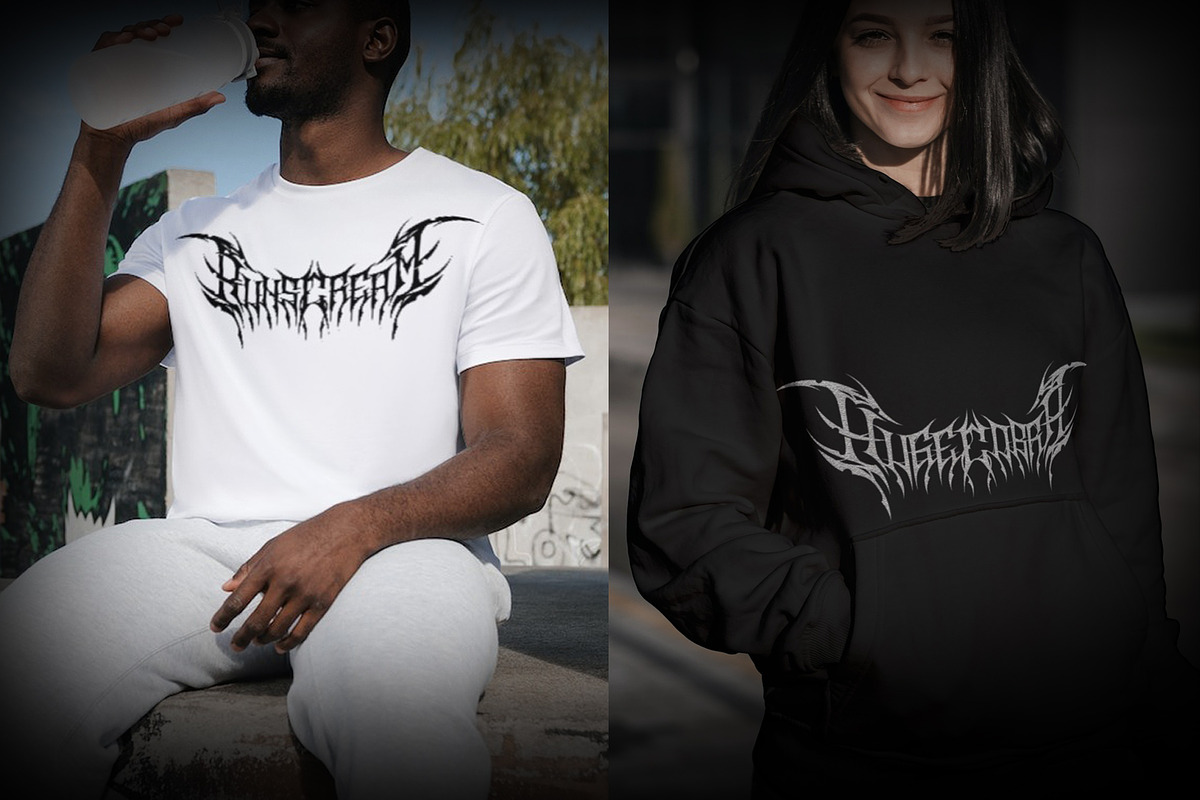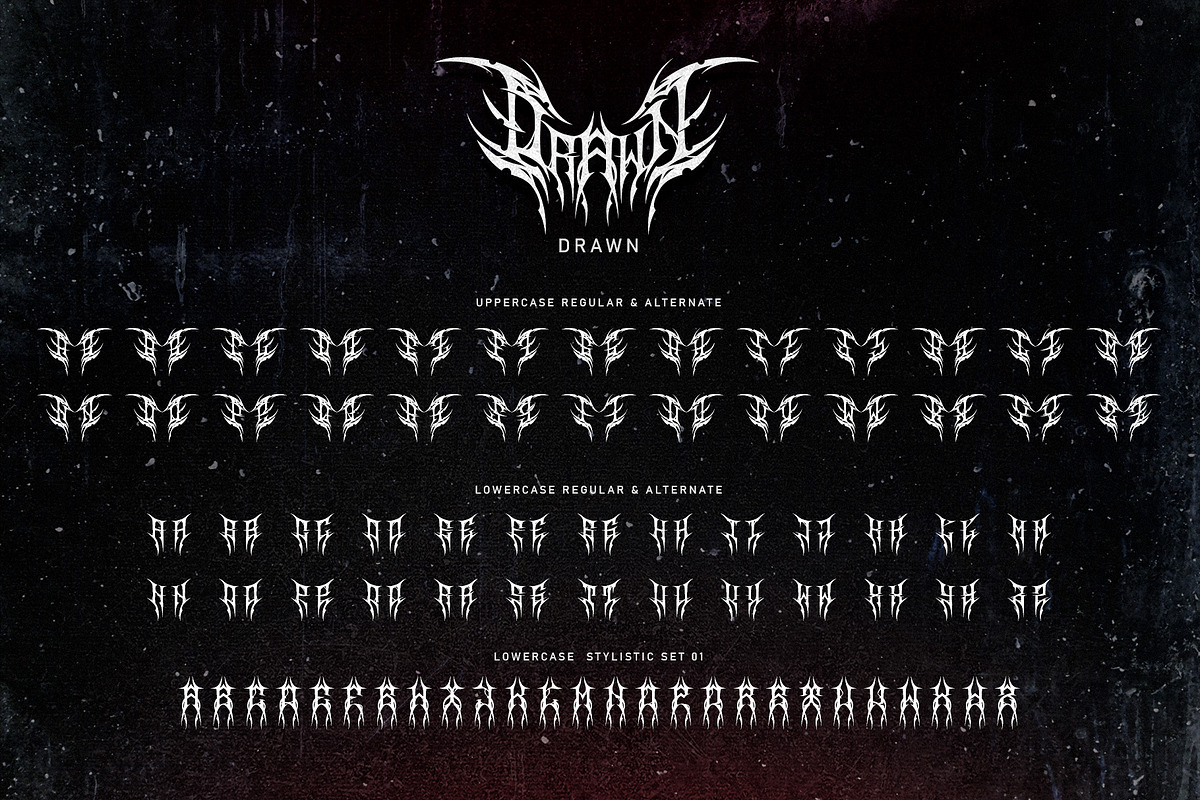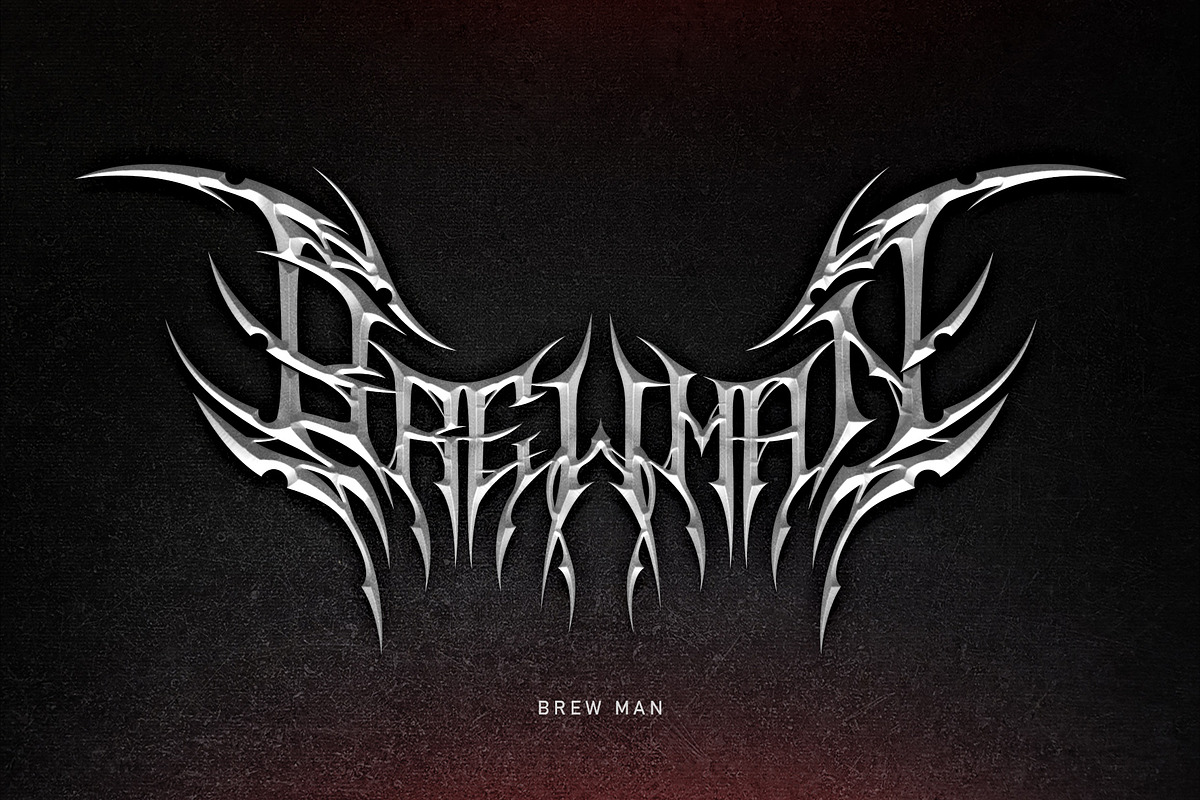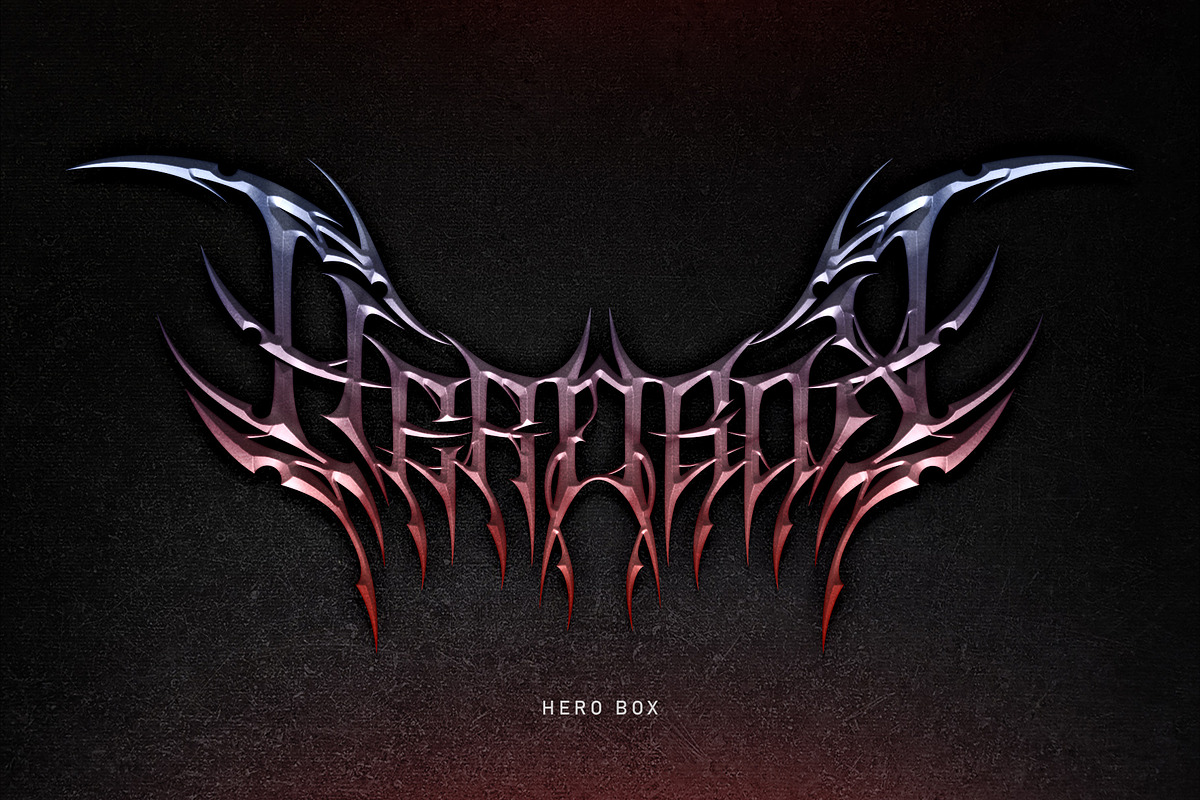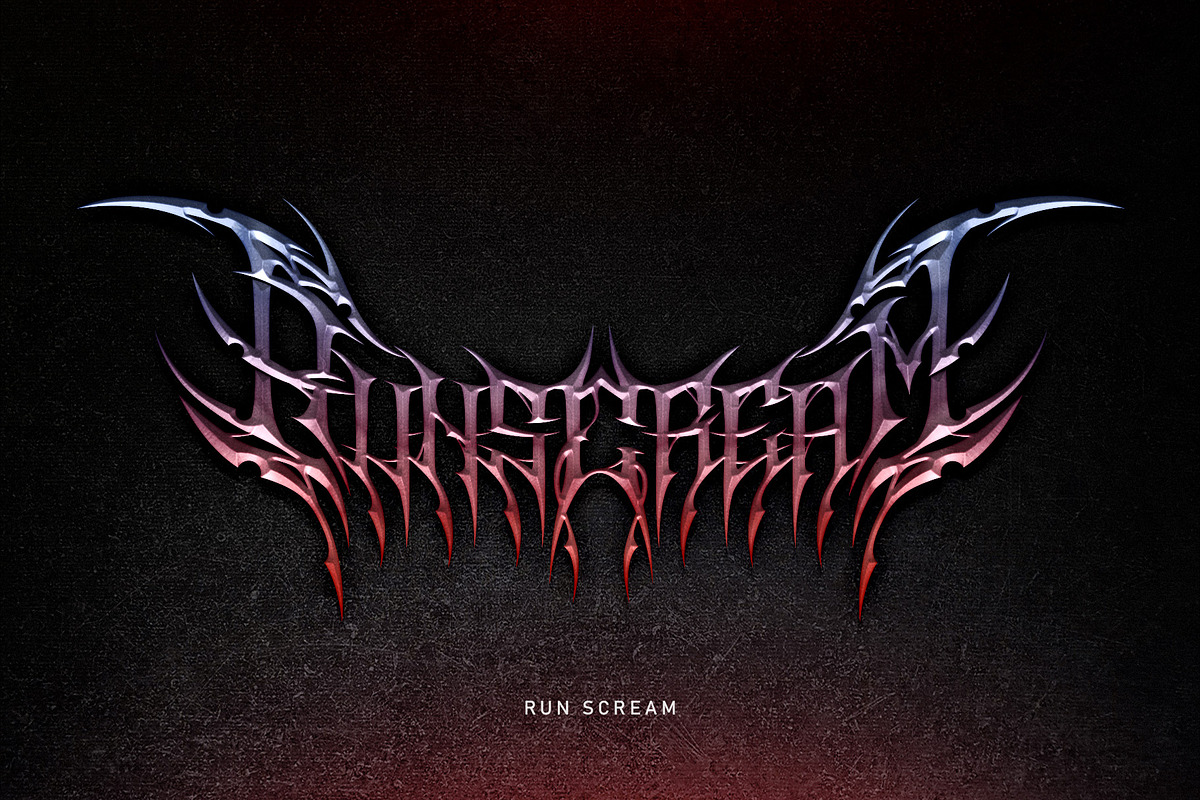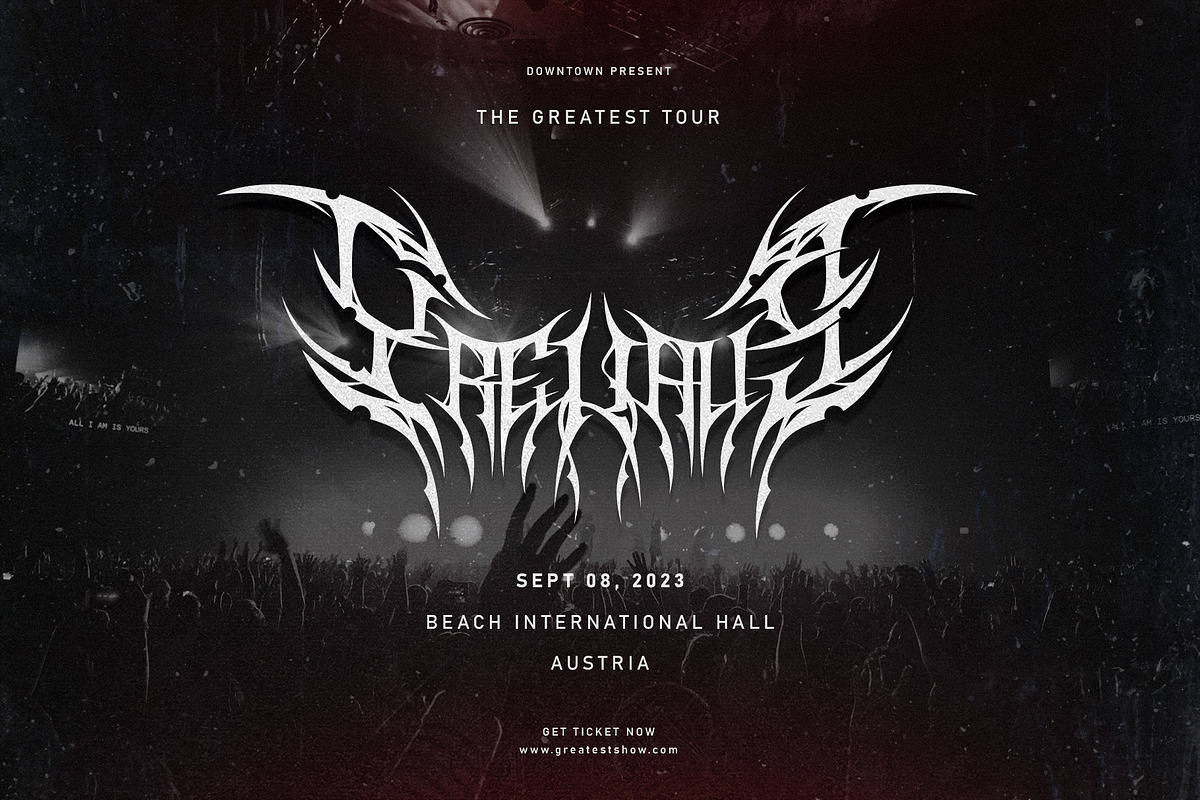
Drawn | Metal Font
Drawn is a heavy metal font made with a touch of darkness, featuring a heavy metal feel to compliment your design. Drawn is very easy to use in any variation or writing combination, also perfect for metal band logos, merchandise, clothing, apparel, or anything else that calls for a heavy metal feel.